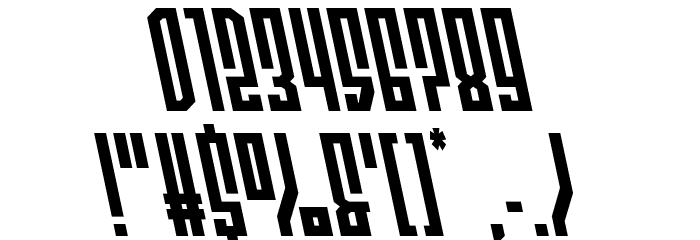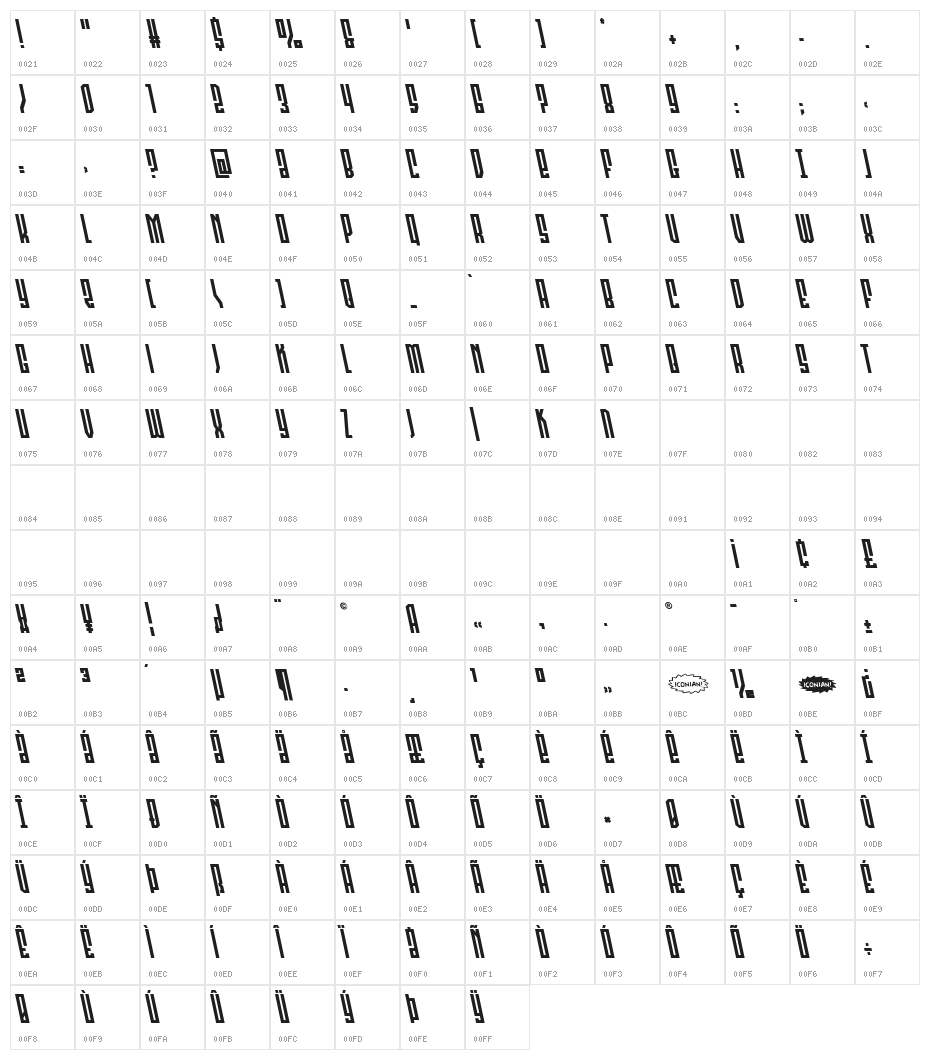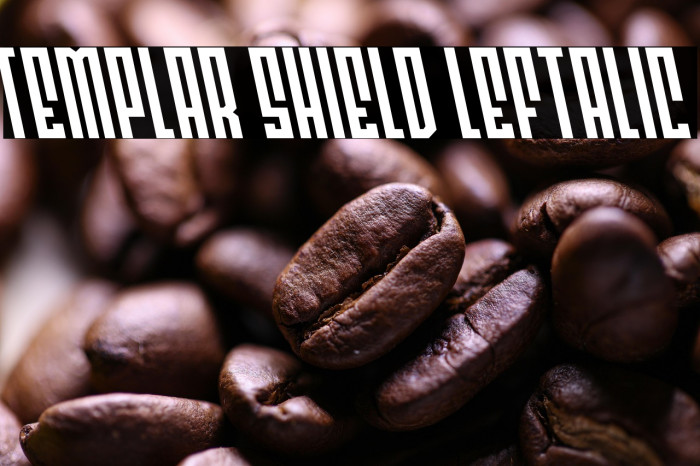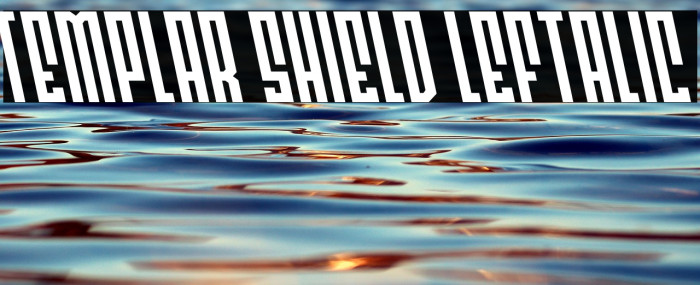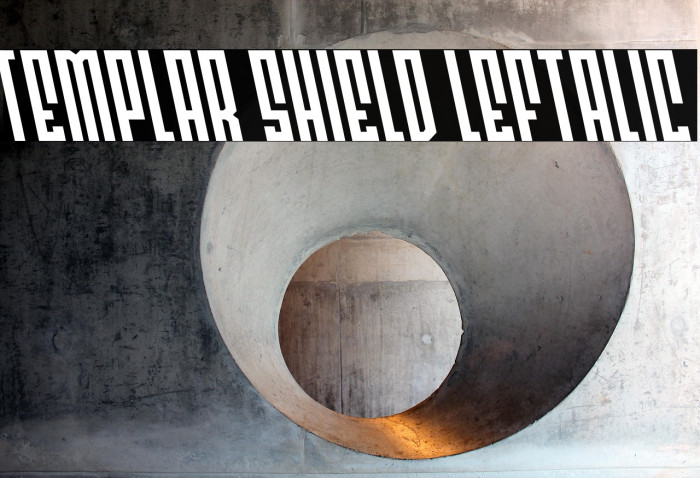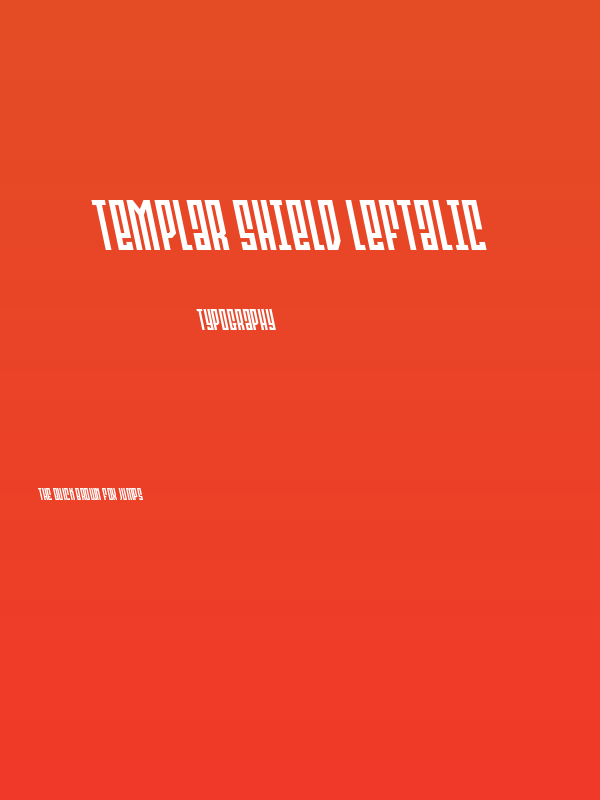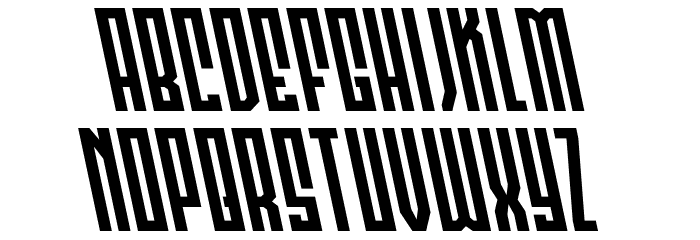
Templar Shield Leftalic Font
Templar Shield Leftalic Description
This font features a bold and angular design with a distinct slant to the left, giving it a dynamic and aggressive appearance. The characters are tightly spaced, with sharp edges and a uniform stroke width that maintains consistency across all letters and numbers. The uppercase and lowercase letters share a similar height, enhancing the boldness of the font. The numerals and special characters are designed to match the overall style, ensuring a cohesive look. This font is ideal for projects that require a strong and impactful visual presence.
| Proposed Projects | Ideal for sports branding, video game titles, and dynamic poster designs. |